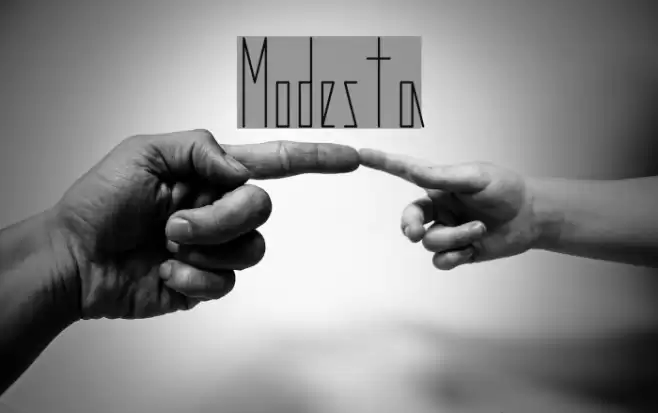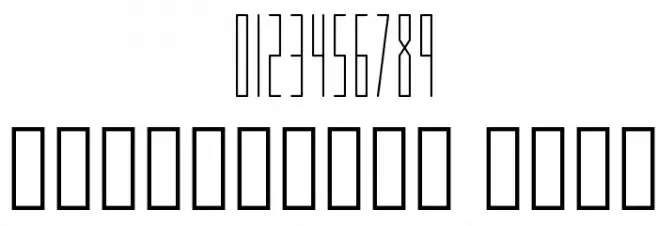
Modesta Font
Modesta Description
This font features an ultra-thin and elongated design, characterized by its tall and narrow letterforms. The strokes are consistently thin, giving it a sleek and modern appearance. The uppercase letters are particularly elongated, with a uniform height that creates a striking vertical emphasis. The lowercase letters maintain the same thinness, contributing to a cohesive look across the typeface. The numerals are similarly styled, with a minimalist approach that complements the overall aesthetic. Special characters are included, maintaining the same thin and elongated style, ensuring consistency throughout. This font's unique design makes it suitable for projects that require a modern and stylish touch.
A thin, elongated font with a modern and sleek design from Uncategorized fonts.
- Proposed Projects: Ideal for fashion magazines, luxury branding, modern art posters, and minimalist design projects.